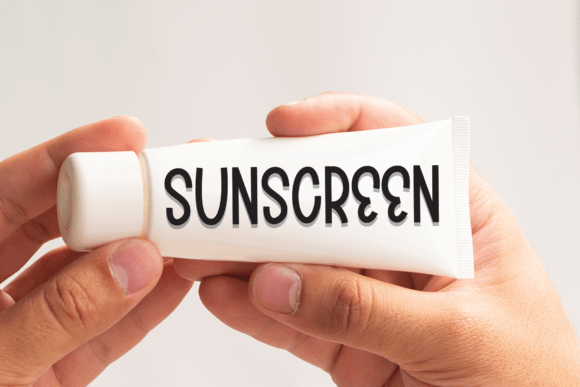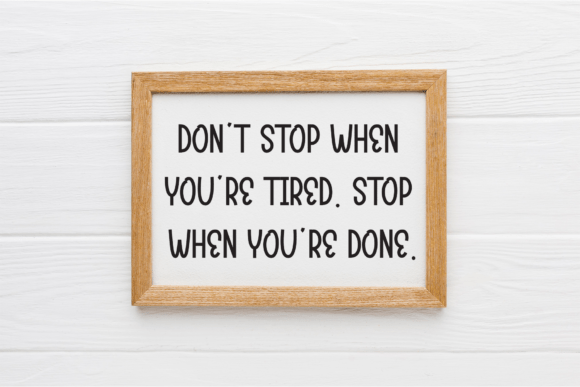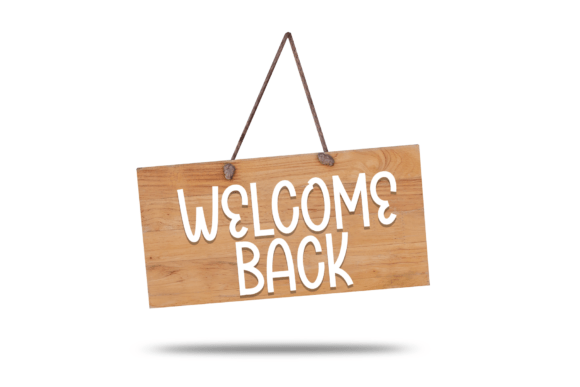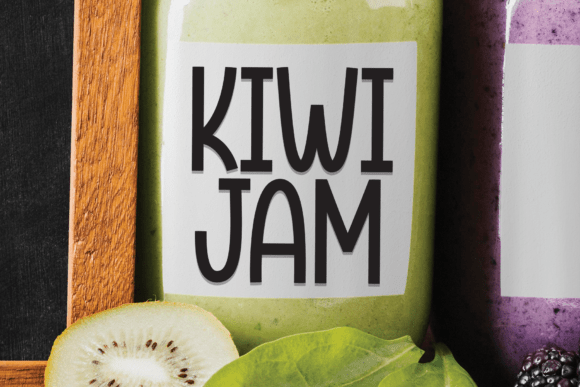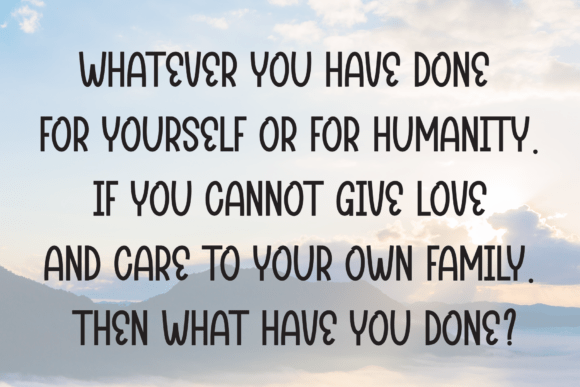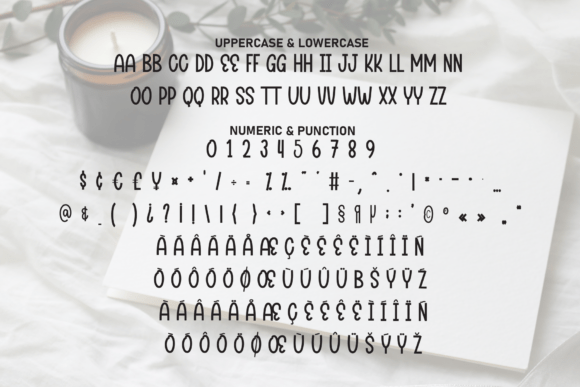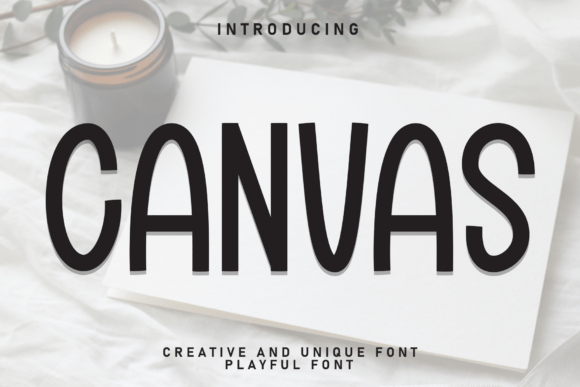
Introducing Canvas Font: The Perfect Blend of Freshness and Friendliness
Are you a designer or crafter looking for a font that can add a touch of warmth and approachability to your projects? Look no further than Canvas Font, a casual and neat display font that radiates a fresh, friendly vibe. With its clean lines and relaxed structure, Canvas Font is perfect for a wide range of applications, from packaging and posters to social media graphics and more.
The Characteristics of Canvas Font
So, what makes Canvas Font so special? For starters, its clean lines and relaxed structure give it a laid-back feel that’s perfect for designs that need to convey a sense of friendliness and approachability. The font’s neat and organized appearance also makes it highly legible, even at smaller sizes. This makes it an excellent choice for designs that require a clear and concise message, such as packaging labels or social media graphics.
Canvas Font is a versatile font that’s perfect for designers and crafters who want to add a personal touch to their projects. Whether you’re working on a branding project, creating a poster for a event, or designing a social media graphic, Canvas Font is a great choice. Its approachable design adds charm and clarity to projects, making it an excellent choice for designs that need to connect with the audience on a personal level.
Key Features of Canvas Font
- Clean lines and relaxed structure: Gives the font a fresh and friendly vibe that’s perfect for a wide range of designs.
- High legibility: Even at smaller sizes, Canvas Font remains clear and easy to read.
- Approachable design: Adds charm and clarity to projects, making it perfect for designs that need to connect with the audience on a personal level.
- Polished appearance: Despite its casual nature, Canvas Font maintains a polished appearance that’s perfect for professional designs.
Use Cases for Canvas Font
So, what can you use Canvas Font for? The possibilities are endless! Here are a few ideas to get you started:
- Packaging design: Use Canvas Font to add a personal touch to your packaging labels or branding materials.
- Poster design: Create eye-catching posters for events, promotions, or announcements using Canvas Font.
- Social media graphics: Use Canvas Font to create engaging social media graphics that connect with your audience.
- Branding projects: Add a touch of warmth and approachability to your branding materials, such as business cards or letterheads.
Why Choose Canvas Font?
With so many fonts to choose from, why should you choose Canvas Font? Here are a few reasons:
- Unique vibe: Canvas Font has a unique and refreshing vibe that’s hard to find in other fonts.
- Versatility: Use Canvas Font for a wide range of designs, from packaging to social media graphics.
- Easy to read: Canvas Font is highly legible, even at smaller sizes.
- Polished appearance: Despite its casual nature, Canvas Font maintains a polished appearance that’s perfect for professional designs.
In conclusion, Canvas Font is a versatile and refreshing font that’s perfect for designers and crafters who want to add a touch of warmth and approachability to their projects. With its clean lines, relaxed structure, and approachable design, Canvas Font is perfect for a wide range of applications. Whether you’re working on a packaging design, poster, or social media graphic, Canvas Font is a great choice. So why not give it a try and see how it can elevate your designs?